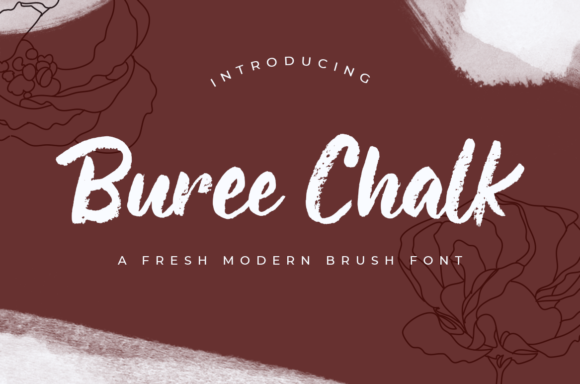
Behold the enchanting Buree Chalk Font, a masterpiece crafted by the visionary nurfdesigns. This script font, with its exquisite chalk texture, is an ode to the beauty of handwritten artistry. Each letter, meticulously designed, dances upon the page, leaving a trail of elegance and charm that is sure to captivate your audience.
With Buree Chalk, your designs will transcend the mundane and embrace the extraordinary. Its versatility knows no bounds, lending itself effortlessly to a multitude of creative endeavors. Whether you seek to create stunning logos, eye-catching social media graphics, or captivating website designs, Buree Chalk will elevate your projects to dizzying heights.
Step into a world where typography meets artistry. Buree Chalk is not merely a font; it is an experience. Immerse yourself in its allure and watch as your creative visions come to life. Let your words take flight, adorned with the grace and sophistication that only Buree Chalk can provide and bask in the admiration of those who behold your creations.